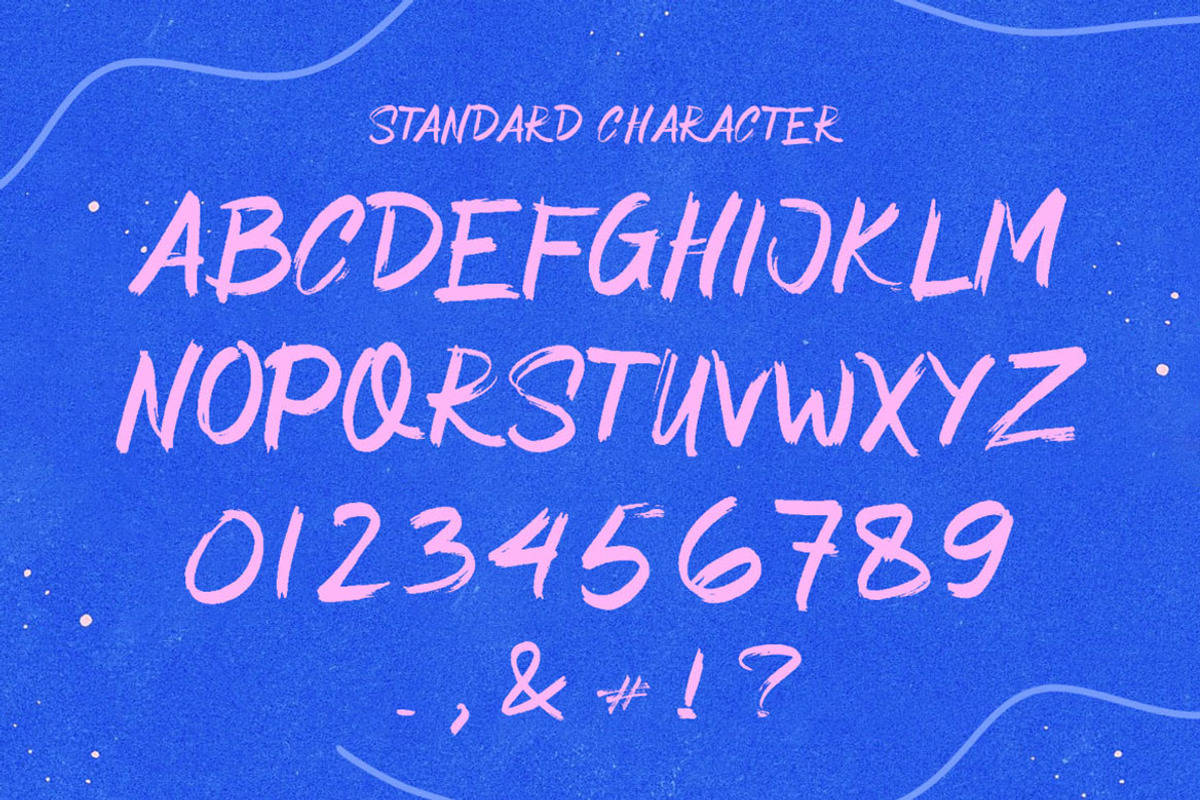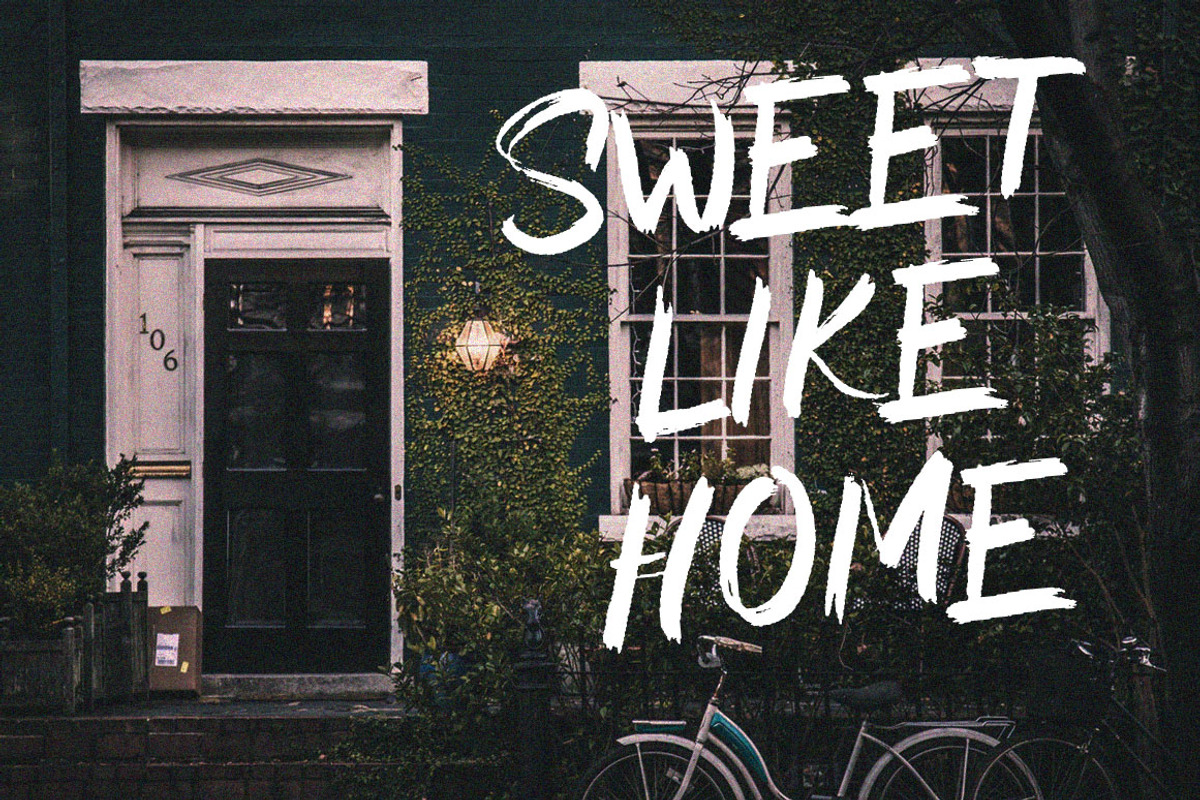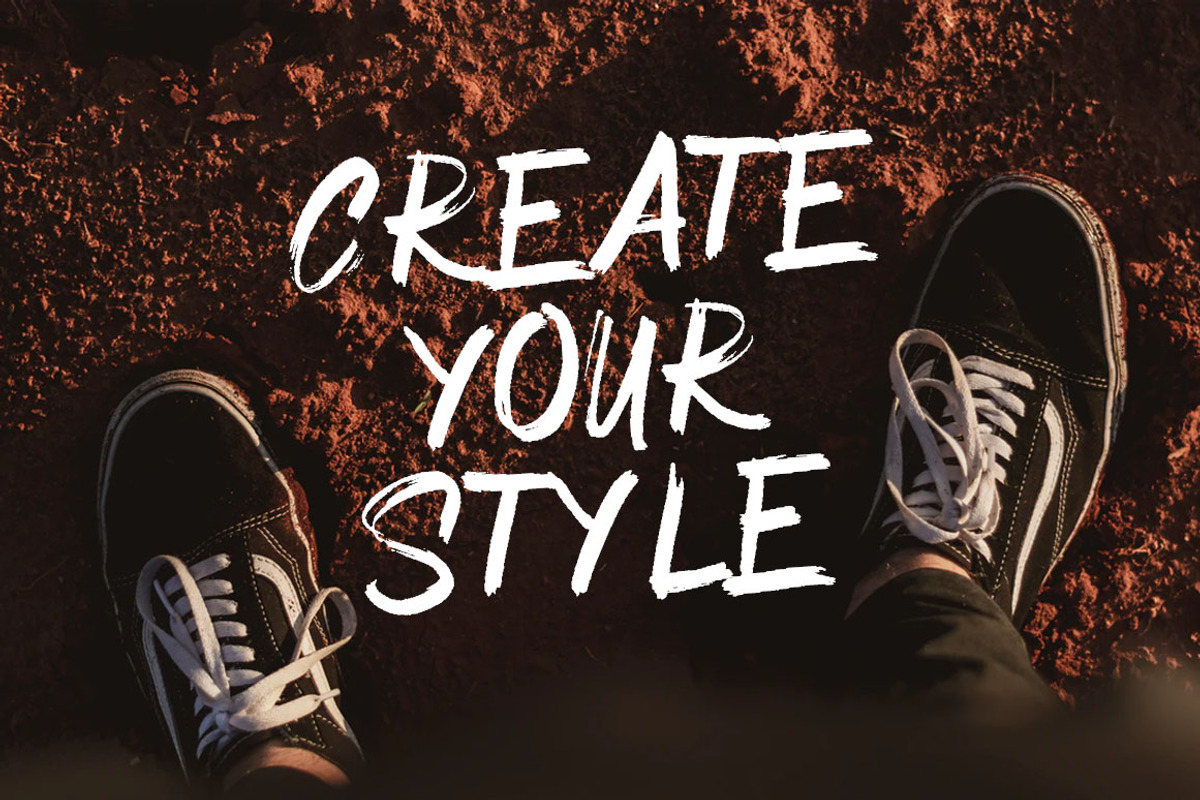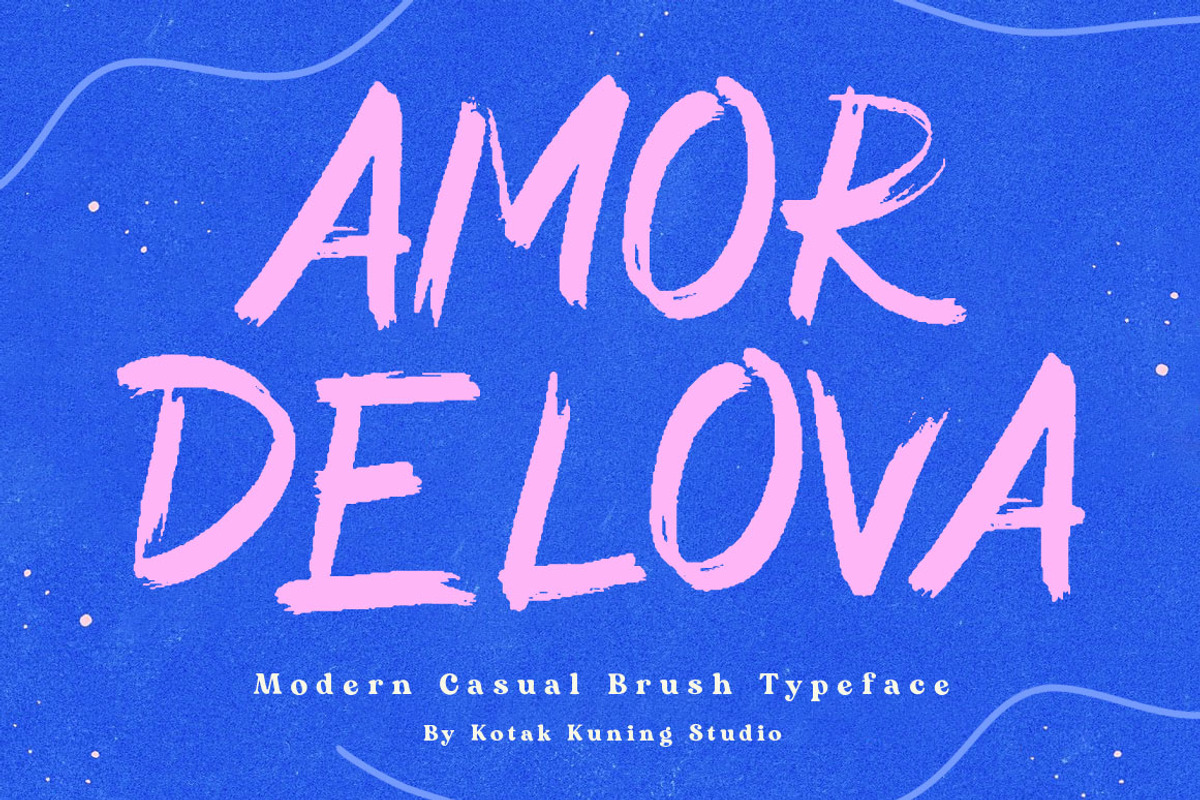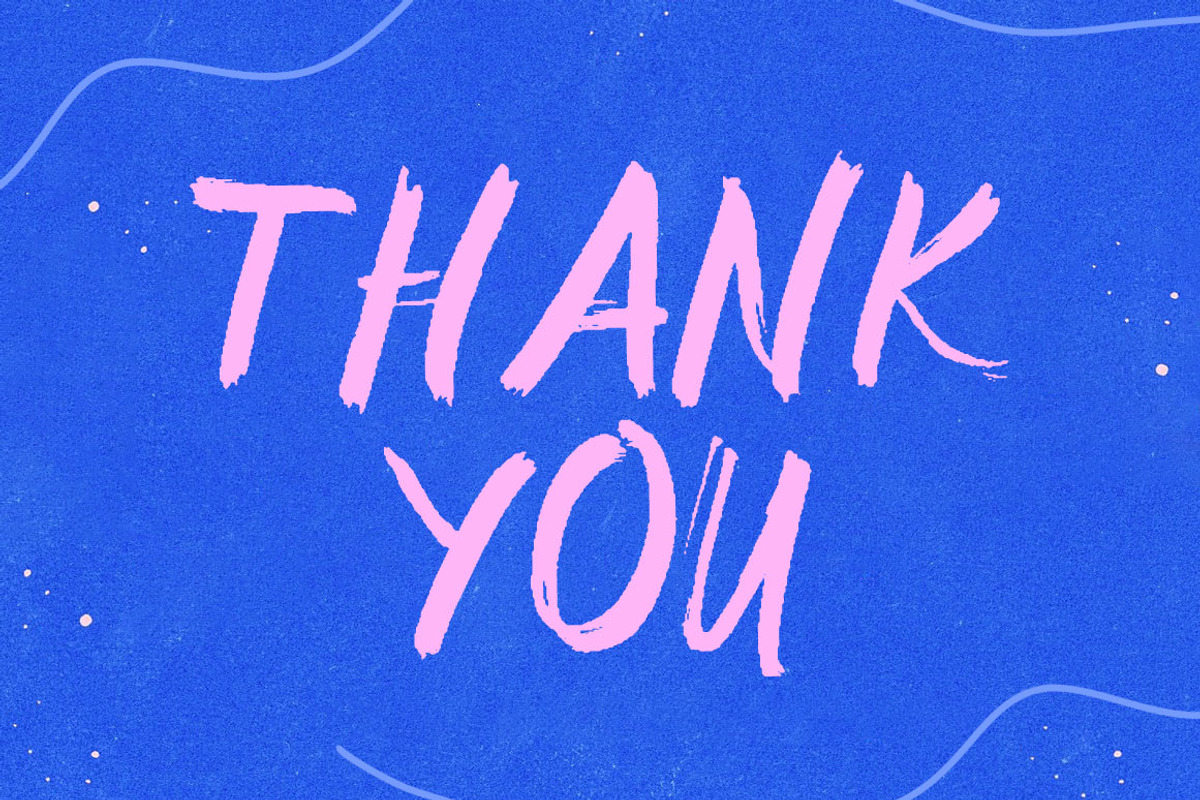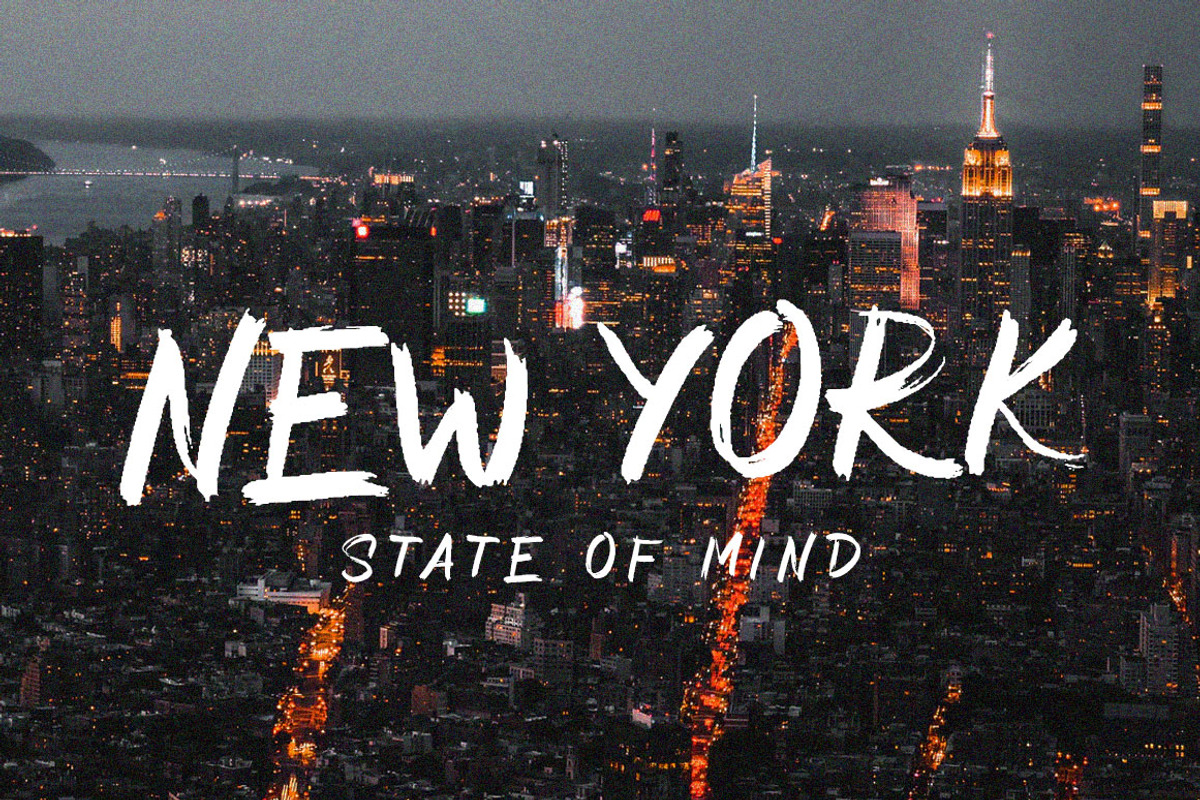
Amor Delova Brush Font
All caps hand-drawn font that was created with a dry brush which gives the more beautiful touch and makes the font looks being customized.
This font is suitable to use as a logotype, product designs, label, watermark, social media posts, apparel, invitation, signboard, sports club, motor/car, special events or anything that need handwriting taste.